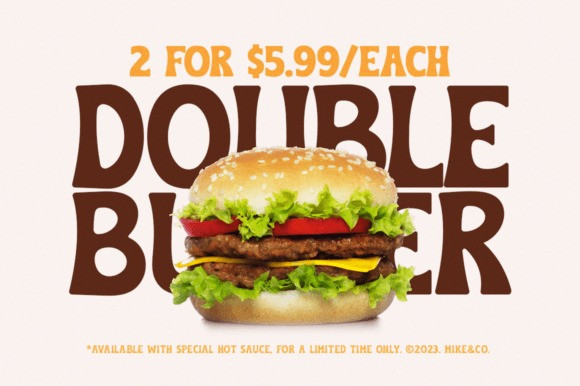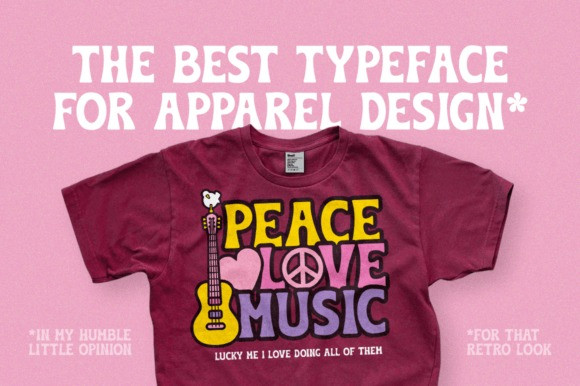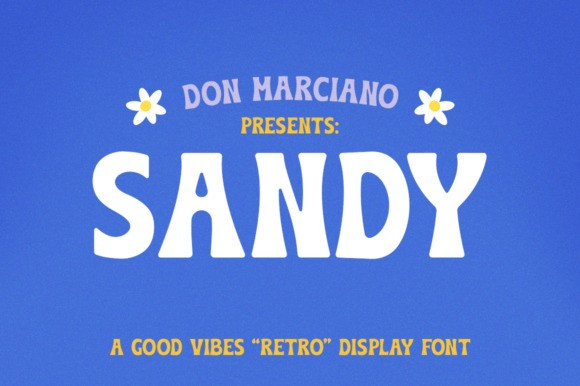
Sandy Font
Sandy Display Font is a retro display font perfect for a smooth, easy-going, relaxed look, with a fluid rounded style. Its slightly groovy vibe will help you create unique, funky designs.